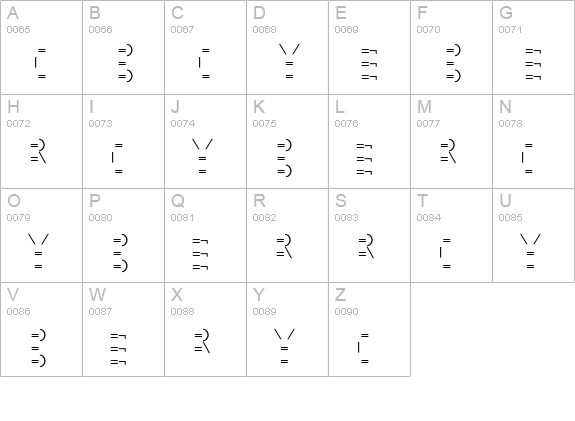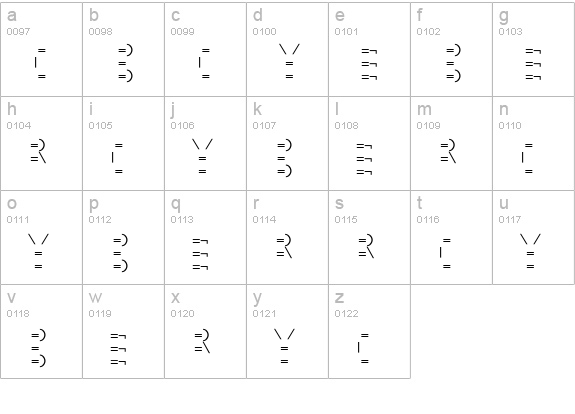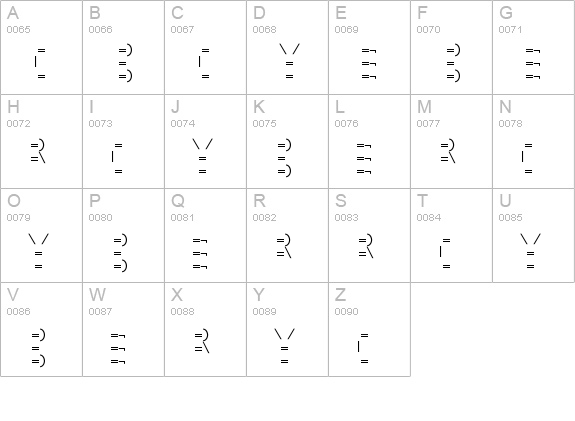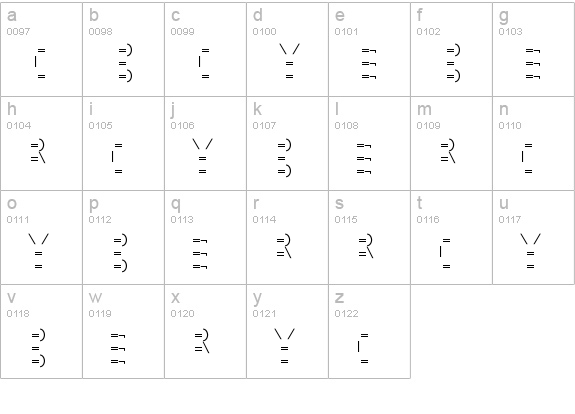
MMMteurs-Cyber Font Details
MMMteurs-Cyber font is a modern and sleek typeface that exudes a futuristic and tech-savvy vibe. Its sharp edges and bold design make it perfect for projects that require a contemporary and edgy look. This font is ideal for branding, logos, web design, and any creative project that needs a touch of modernity. The best part about MMMteurs-Cyber font is that it is available for free download at FontsMarket.com. You can easily access this cutting-edge font and incorporate it into your designs without any cost. Don't miss out on the opportunity to enhance your projects with this dynamic and eye-catching typeface. Download MMMteurs-Cyber font today and take your designs to the next level!